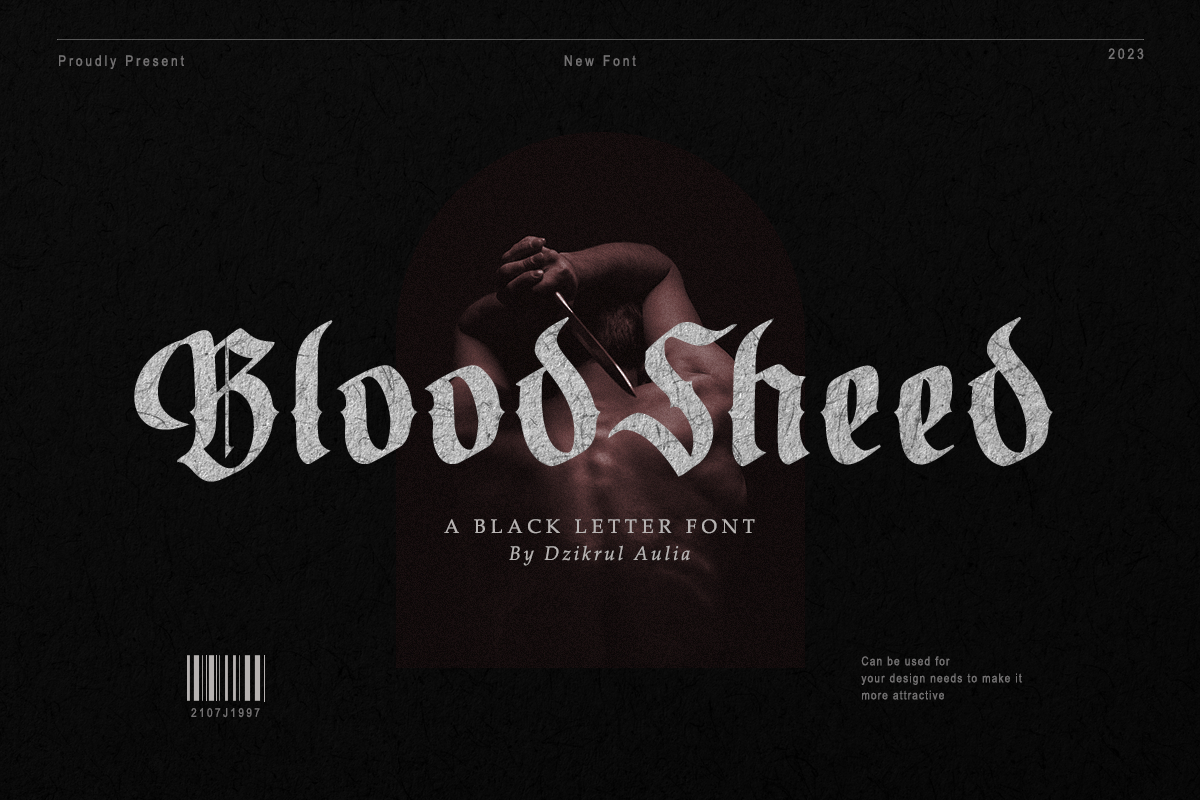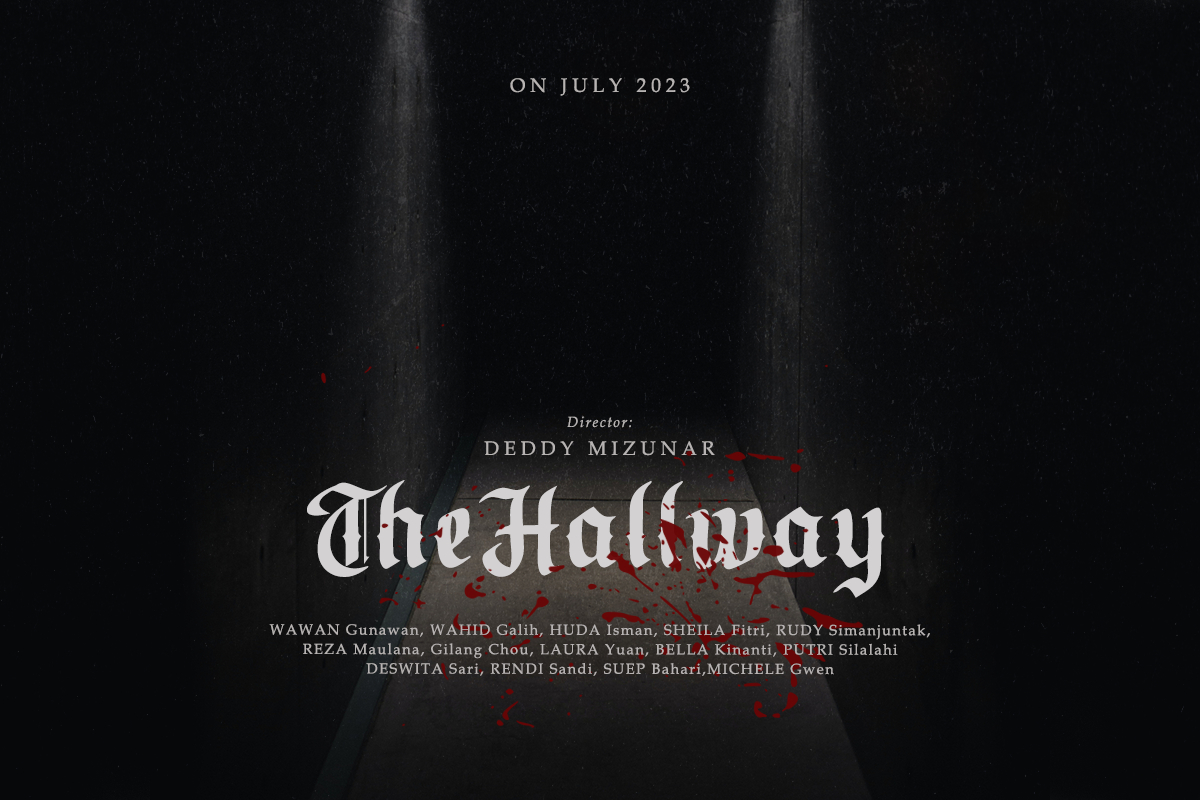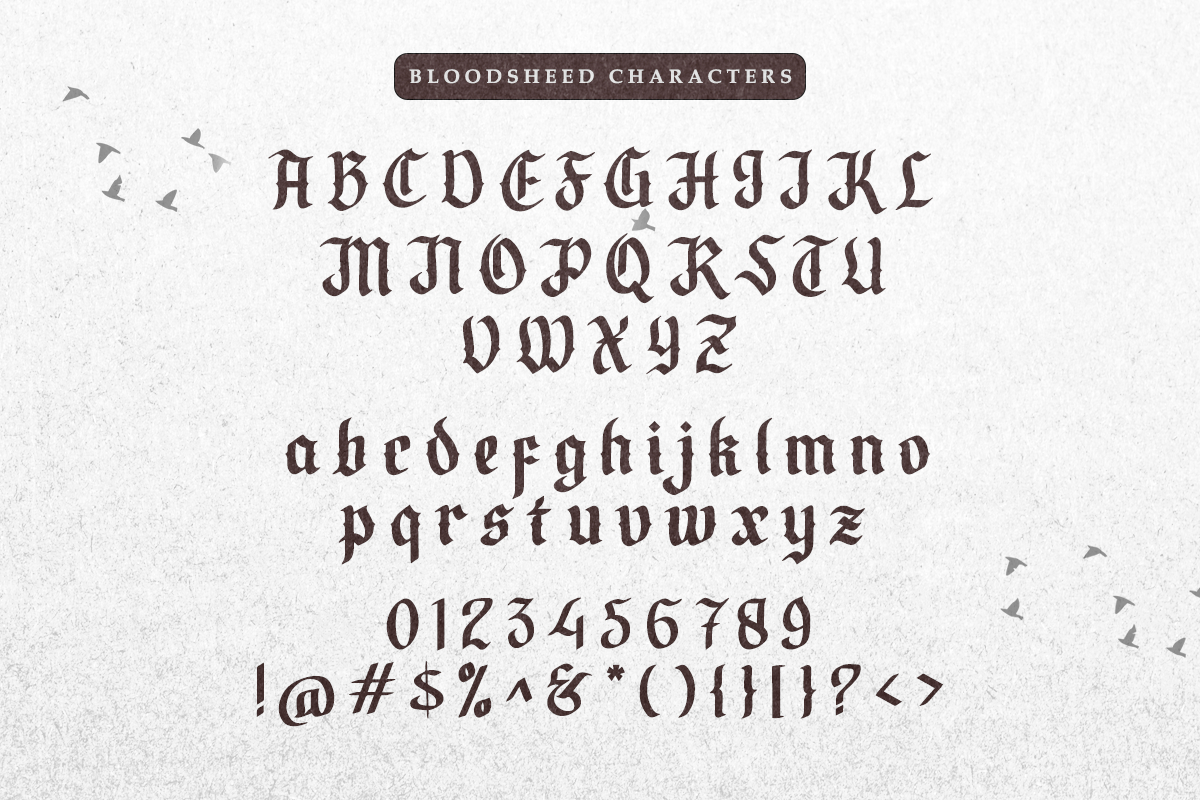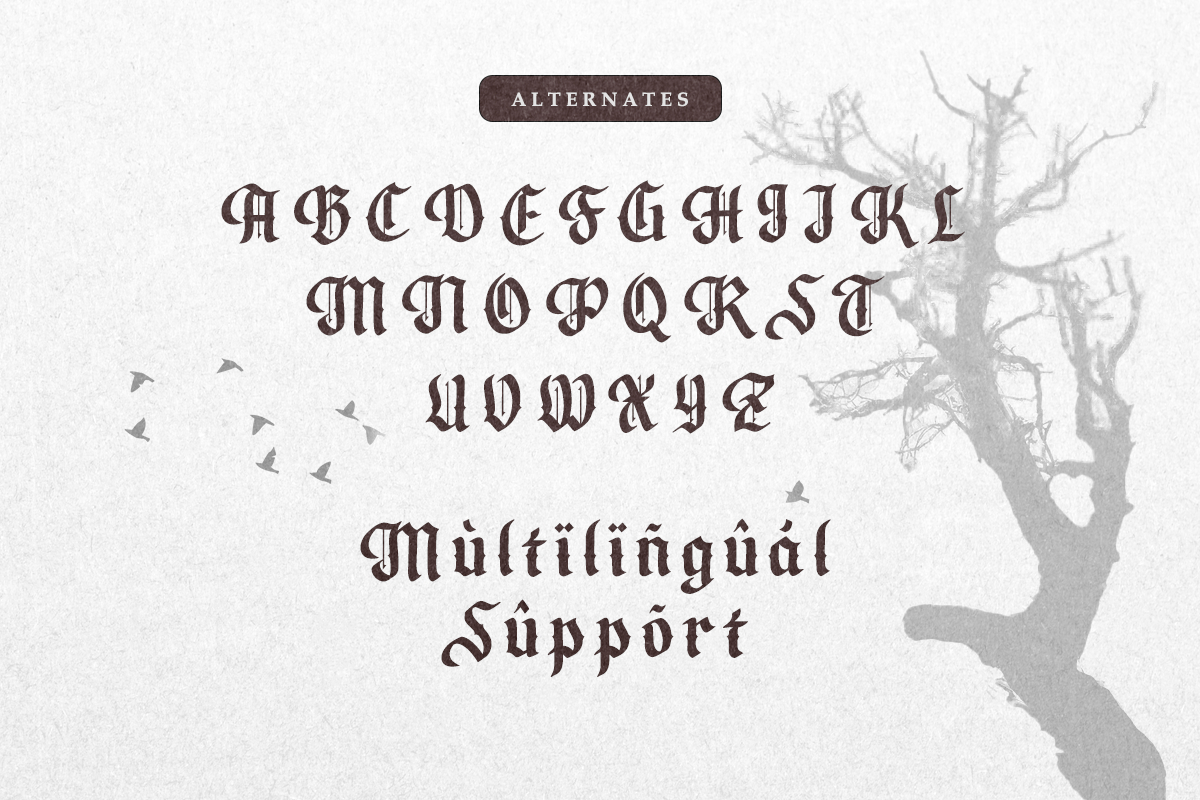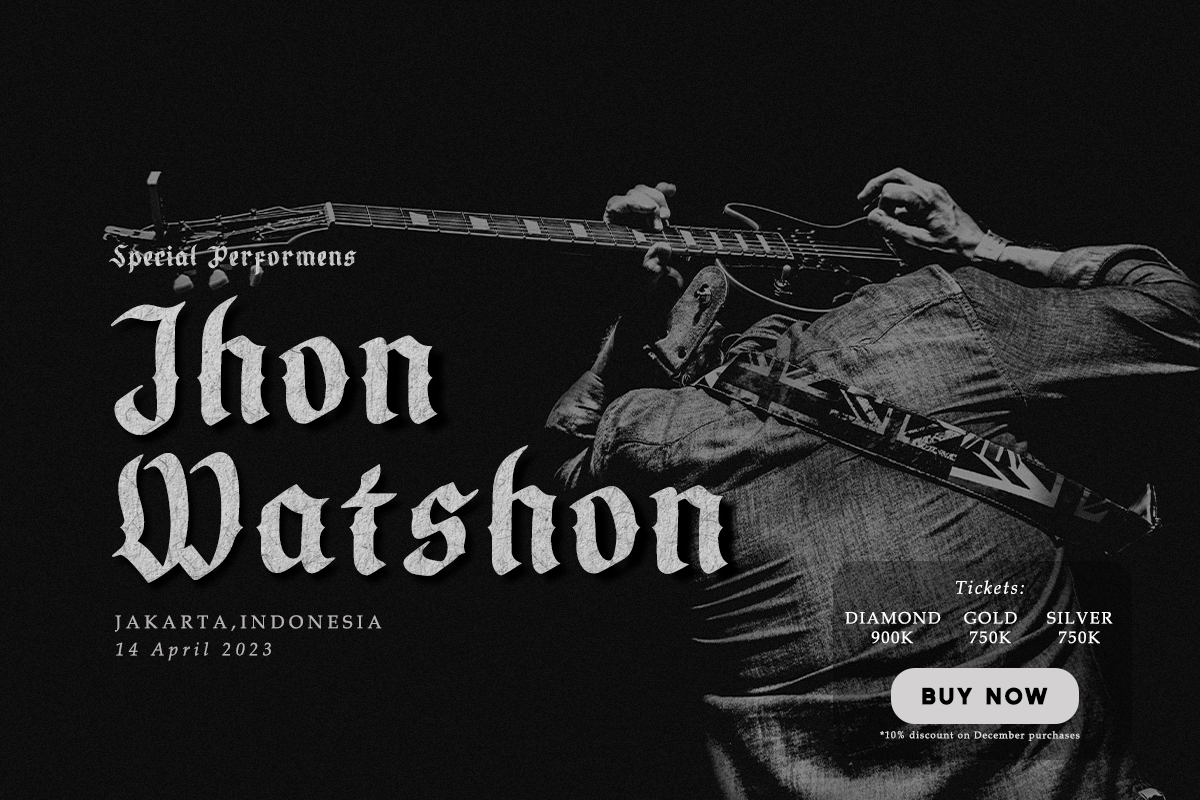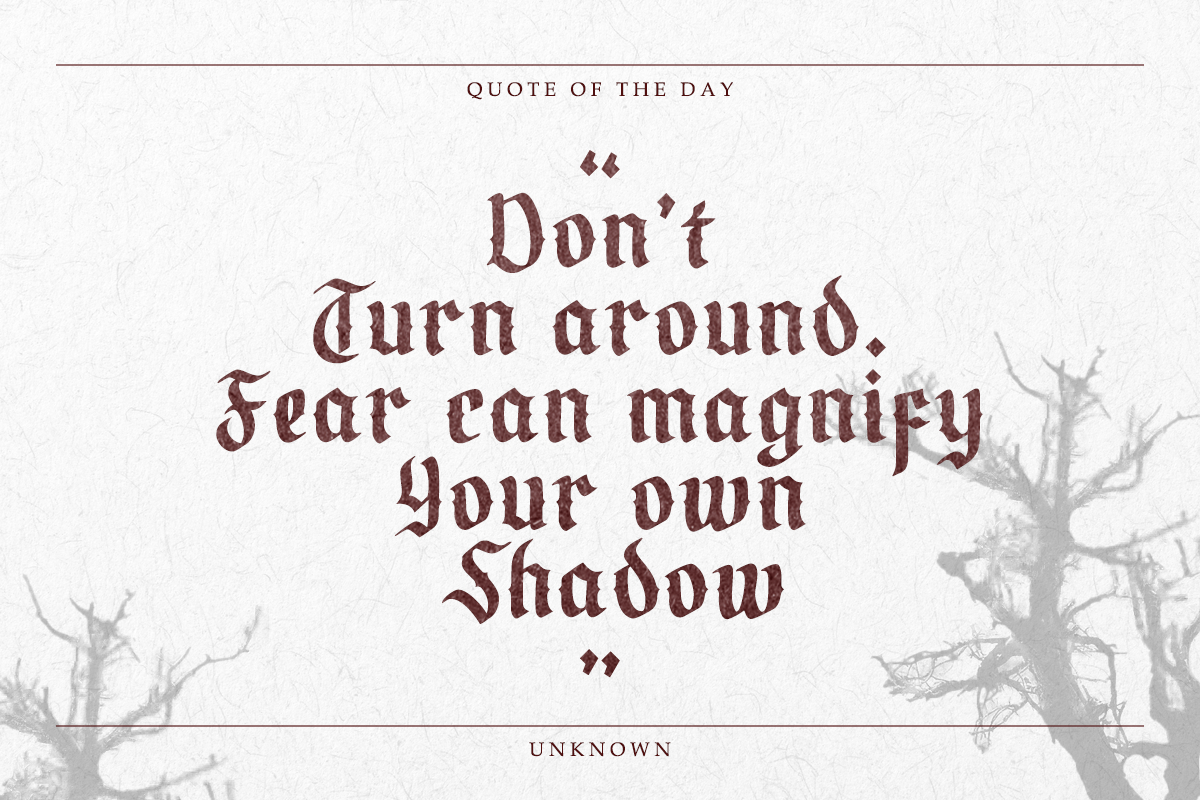
Blood Sheed Font
About Blood Sheed Font
Blood Sheed is a commanding and styled blackletter font that is perfect for adding a touch of old-world elegance to any project. Its bold and dramatic lettering makes it ideal for titles and headlines, while its intricate details give it a unique and sophisticated edge.